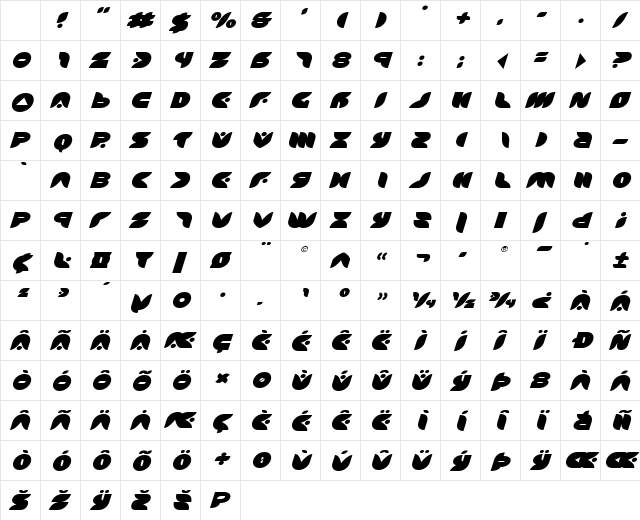
Complete Puff Angel Expanded Italic glyph index. Displaying only characters natively supported by Puff Angel Expanded Italic font.
Puff Angel Expanded Italic is a composed and adaptable typeface that performs quietly and consistently across a wide range of design contexts. The slanted form adds forward momentum and visual energy.